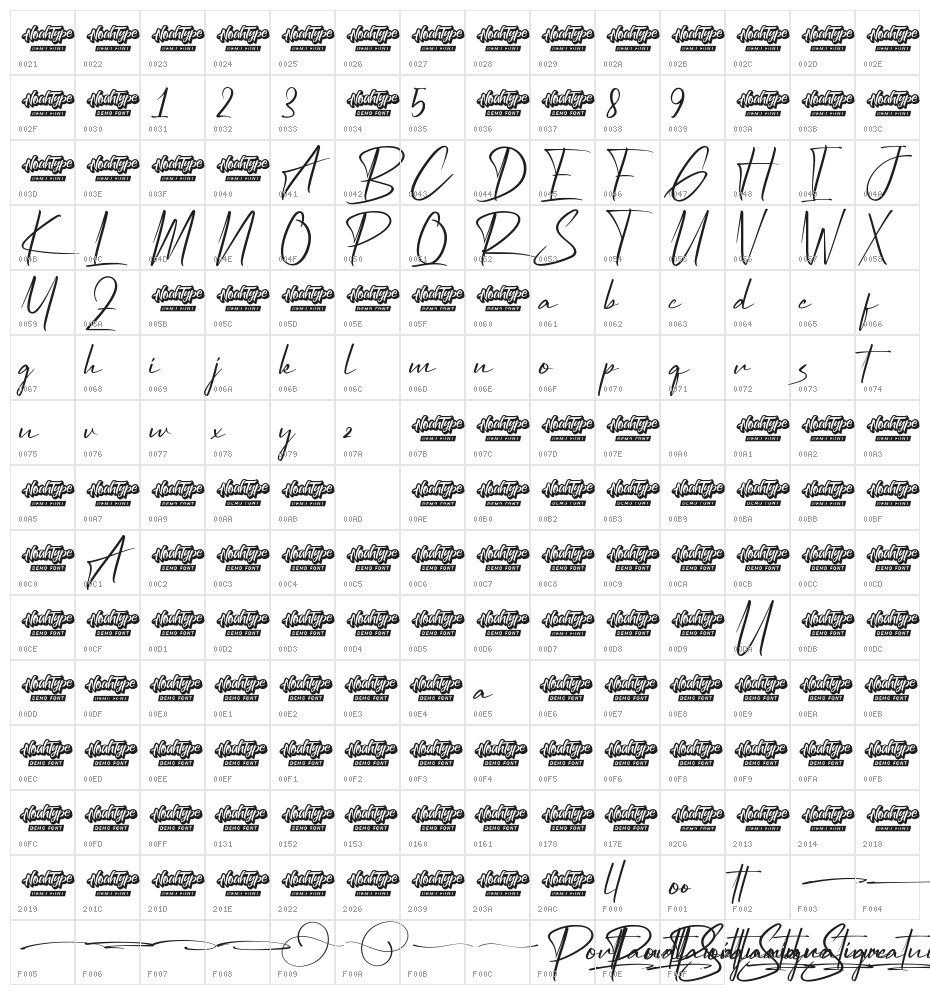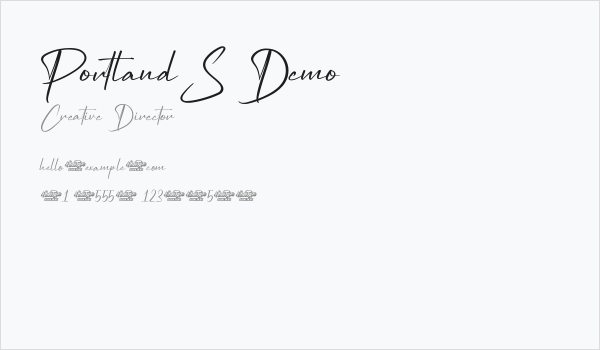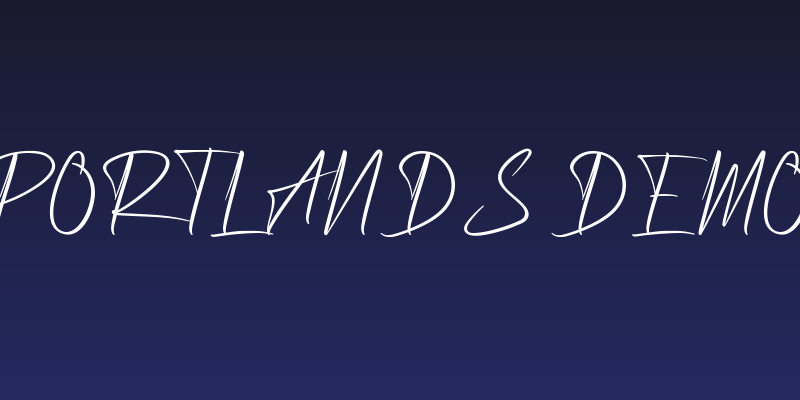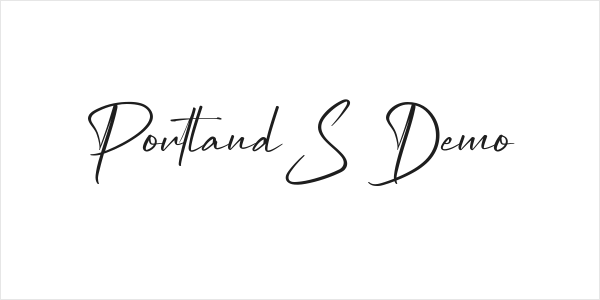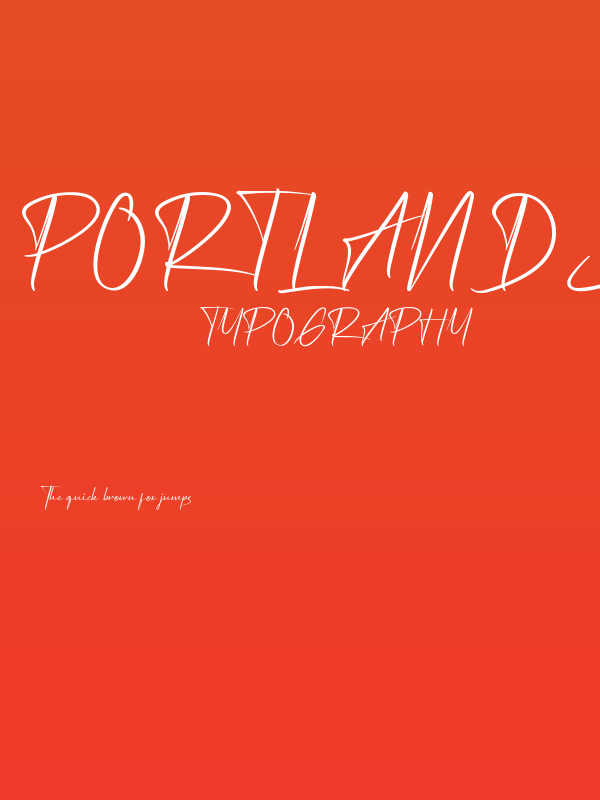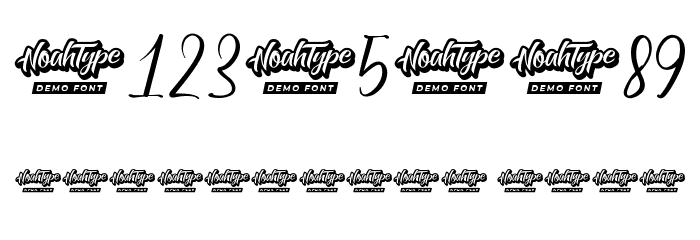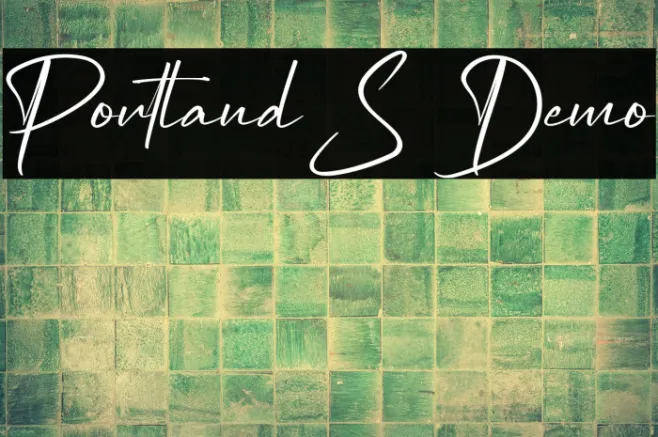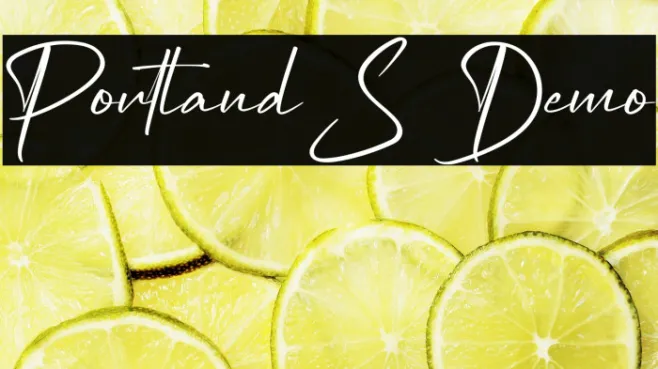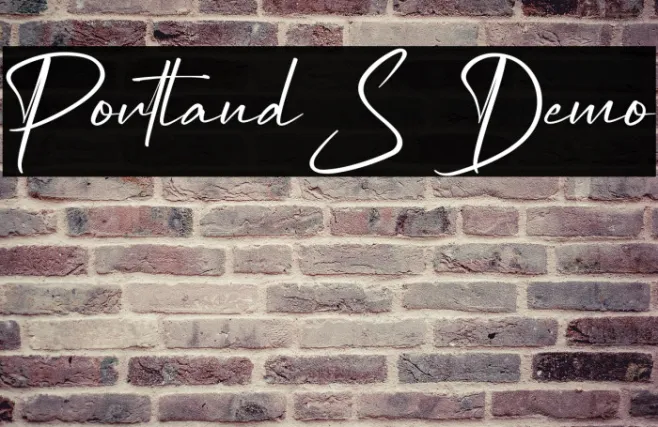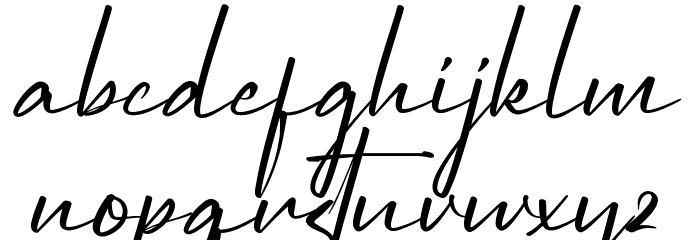
Portland S Demo Font
Portland S Demo Description
This font features a dynamic and expressive handwritten style, characterized by its fluid and cursive letterforms. The uppercase letters are tall and slender, with a slight slant that adds to the casual elegance of the design. The lowercase letters are more connected, enhancing the script-like appearance. The numerals maintain the same flowing aesthetic, ensuring consistency across all characters. This font's unique style is perfect for adding a personal touch to any project, making it ideal for creative and artistic applications.